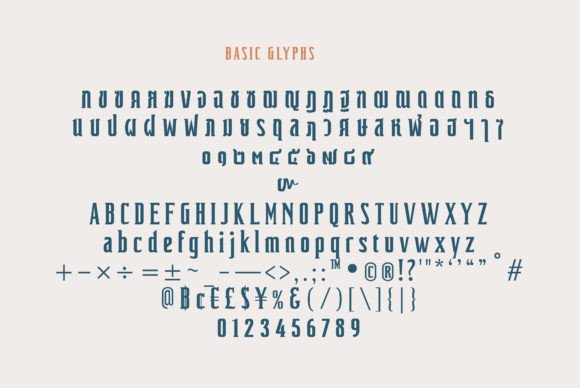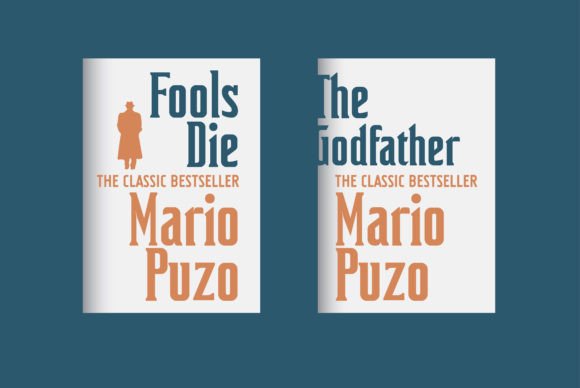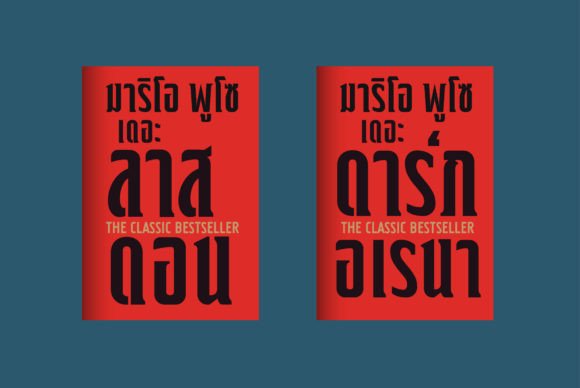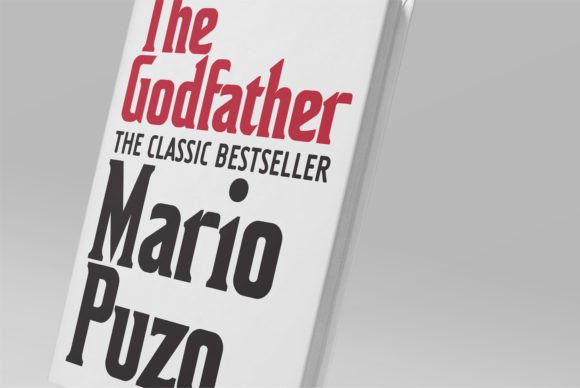
Introduction to Puzo Font
Puzo is a cool and incredibly stylish display font masterfully designed to become a true favorite.
It has beautiful and well-balanced characters and as a result, it matches a wide pool of designs Add it to your most creative ideas and notice how it makes them come alive.